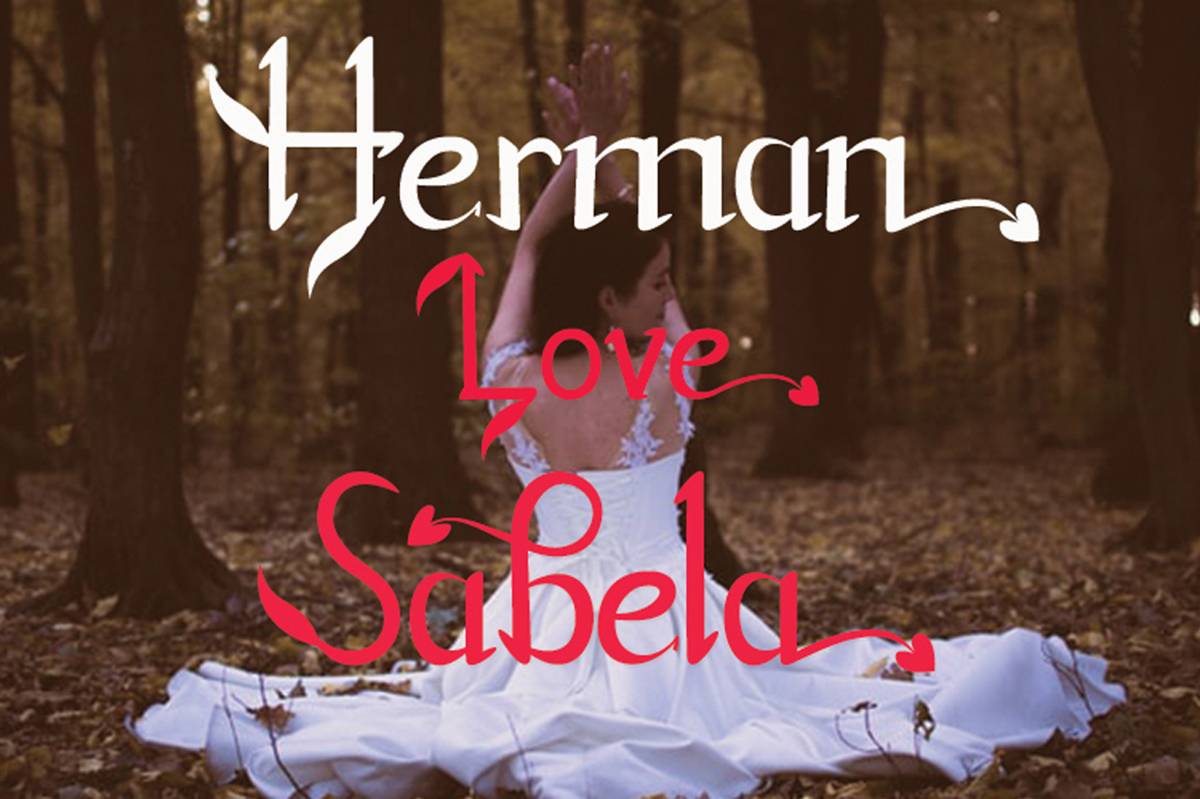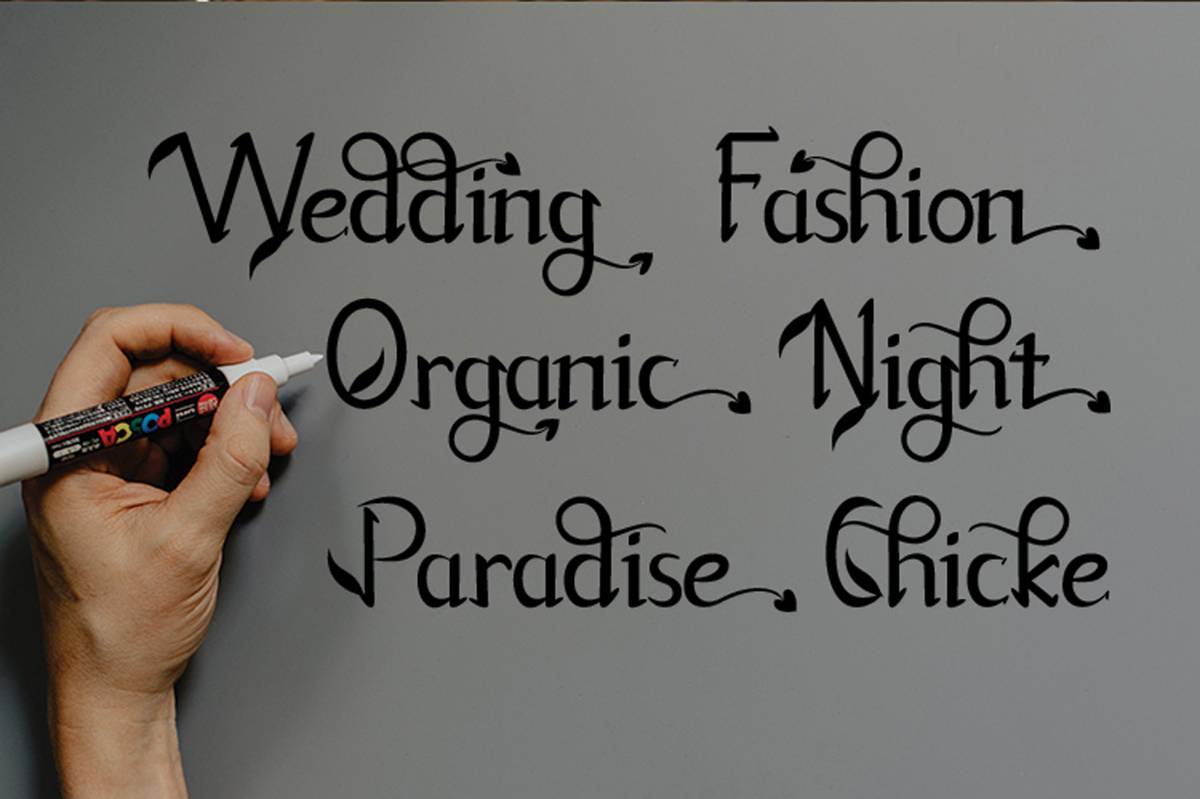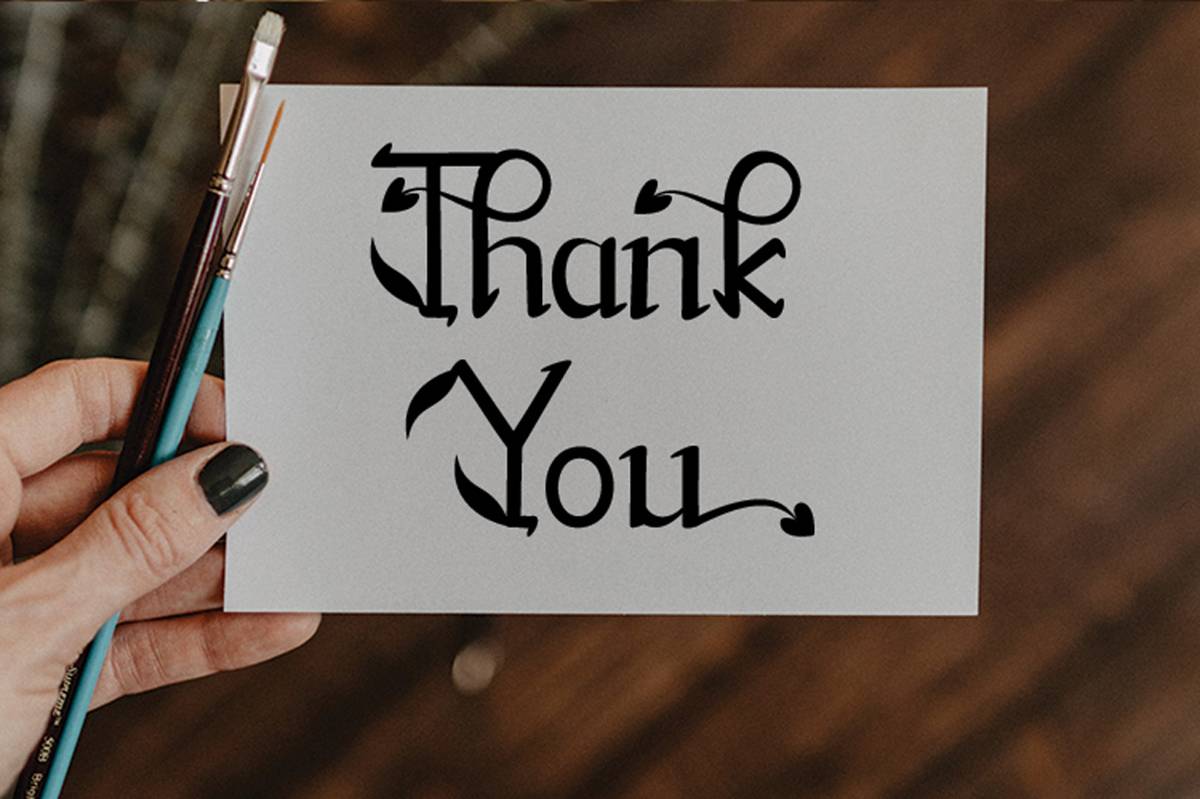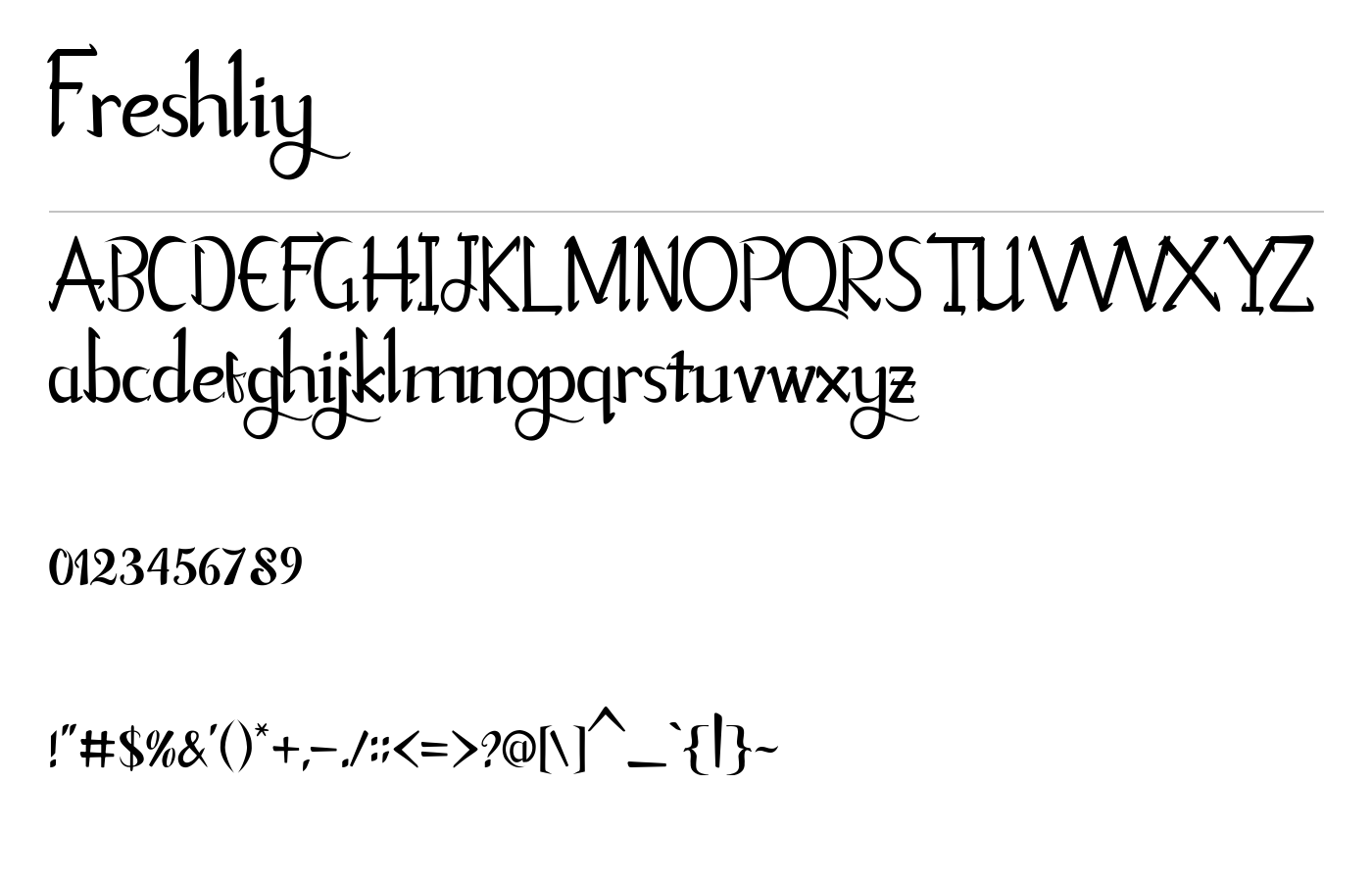
Freshliy is a decorative serif font with a unique, whimsical character, featuring sharp, angular strokes and elegant, playful swashes especially in lowercase letters like l, j, and y. Its medium weight and moderate contrast give it a slightly vintage yet lively feel, making it perfect for creative branding, invitations, or editorial headlines that seek to stand out with personality and charm. This font works best where a touch of artistic flair and distinctiveness is desired, bringing a fresh but classic vibe to any design.
Freshliy Font
About Freshliy Font
| Font family | Freshliy Font |